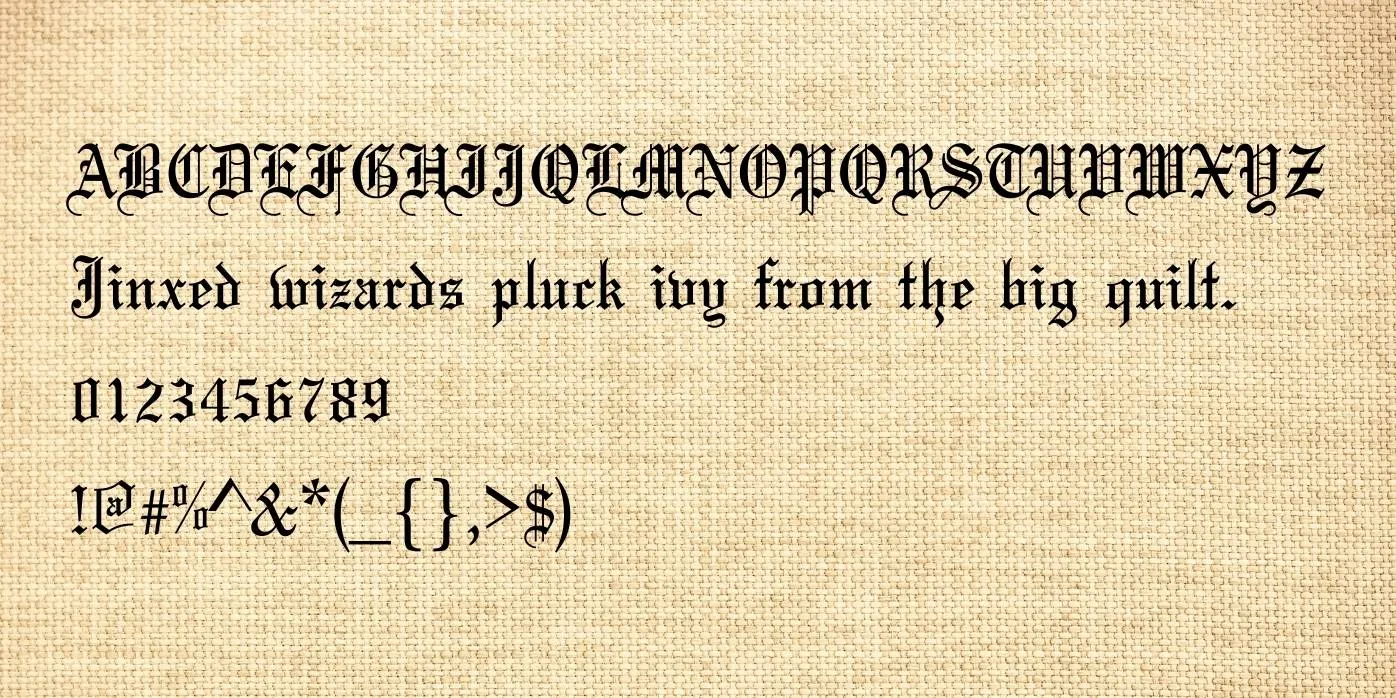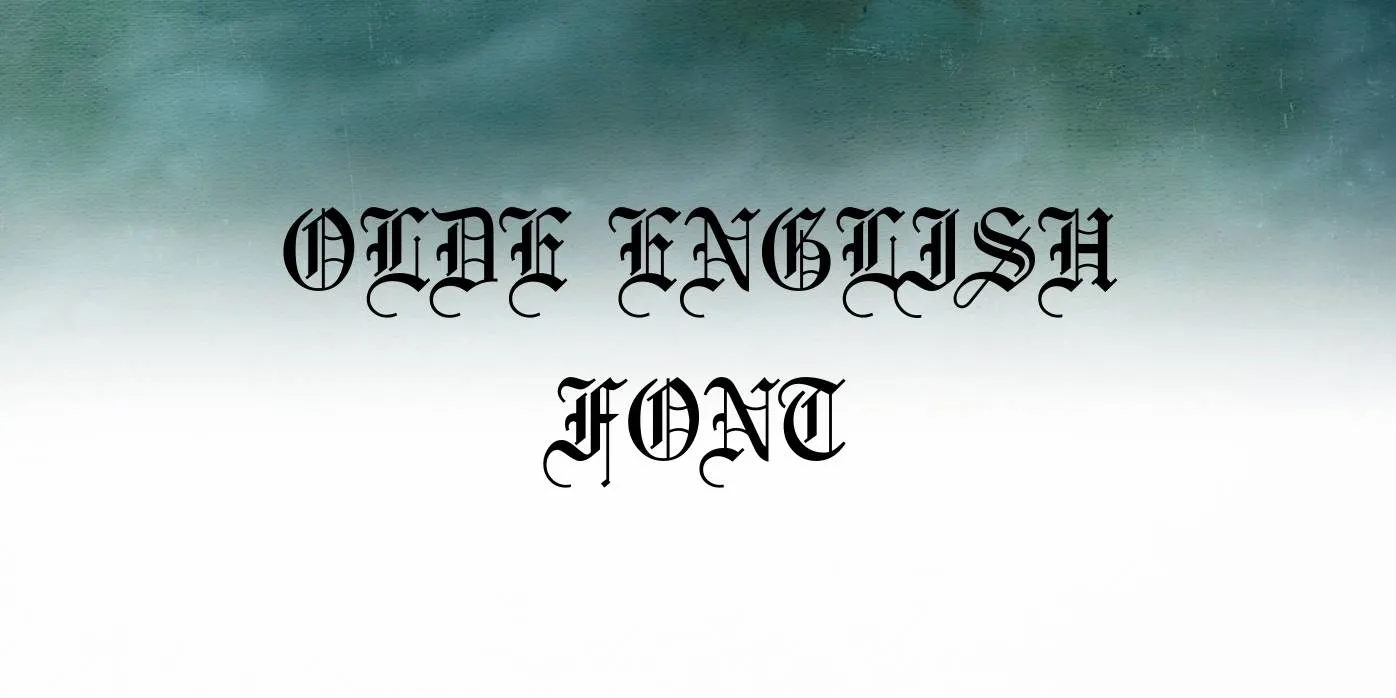
Olde English Font
Introducing the most beautiful and old-style typeface that realizes past ages that is Olde English Font. The designer of this typeface is Dieter Steffmann and the font family belongs to a Gothic typeface family. The font has TrueType features and is available as a free font that you may use anywhere you want. It has gorgeous regular style includes Uppercase and Lowercase, Letters, Numbers and Numerals, and special symbols also.
You may also generate this typeface by an online generator tool even without downloading. The font family supports immense languages such as Chuvash, Interglossa (Glosa), Interlingua, Dutch, Esperanto, Estonian, Evenki, Piedmontese, and many more. It provides the best performance with the combination of Black Panther Font.